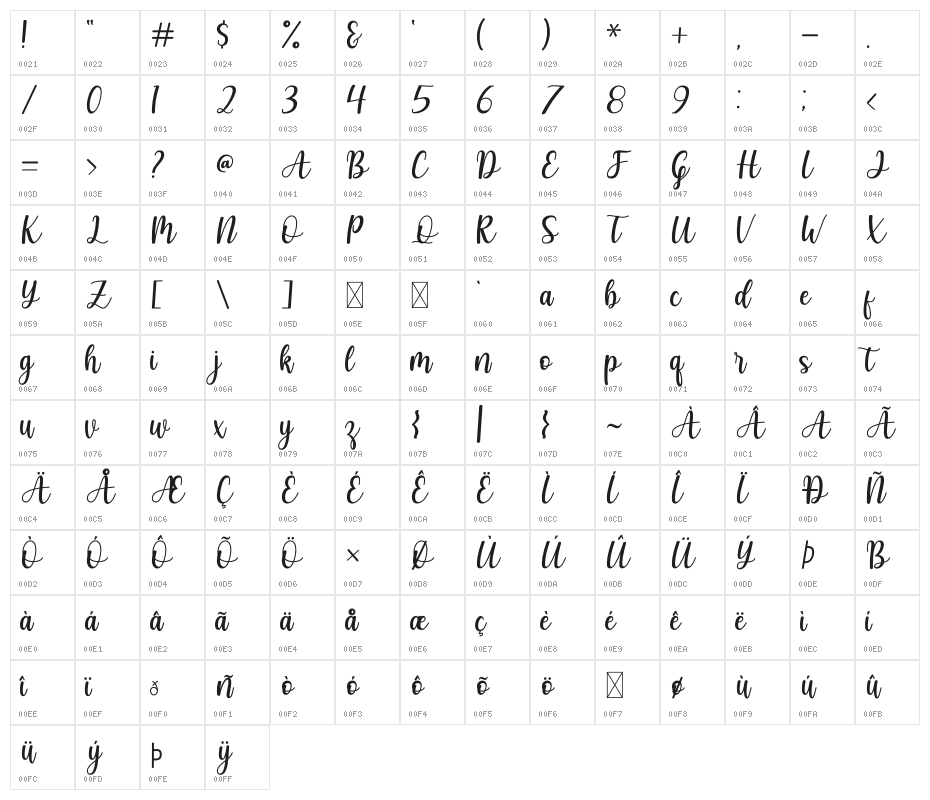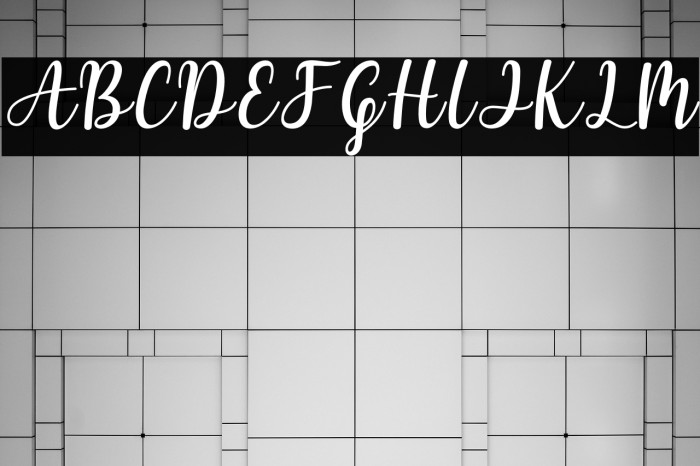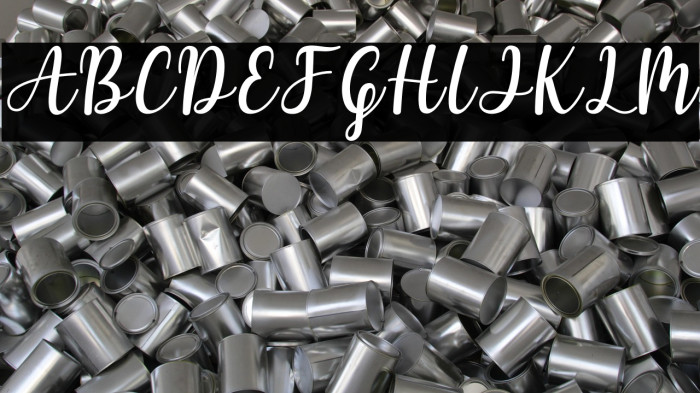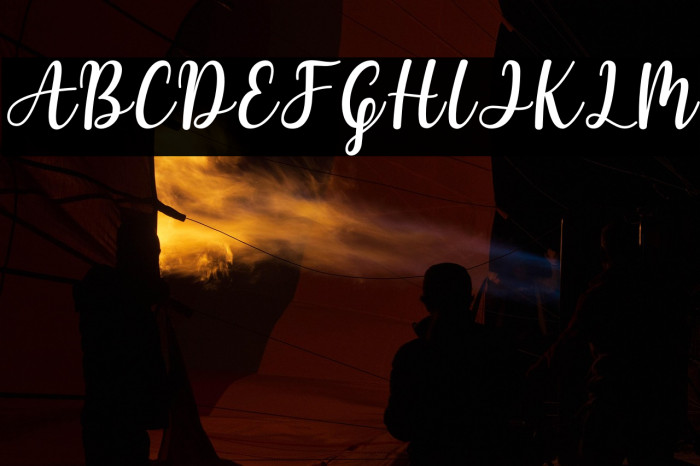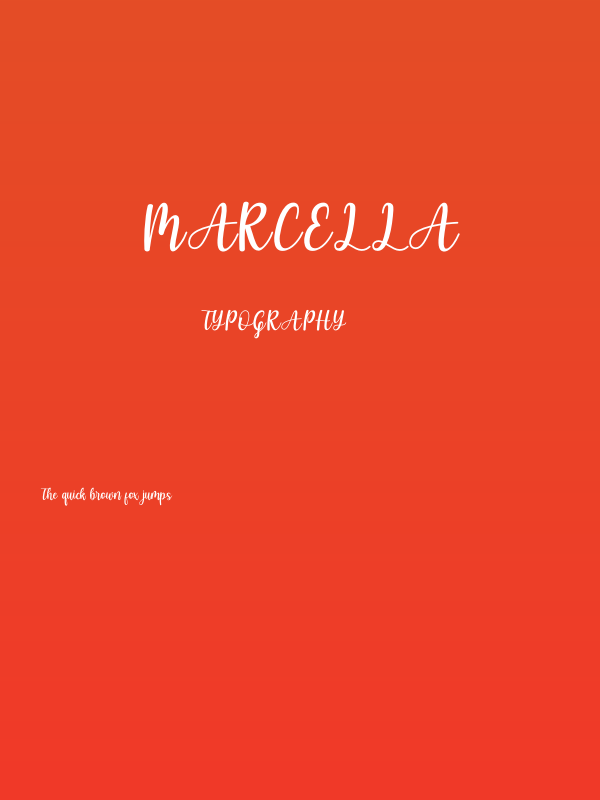
Marcella Font
Marcella Description
This elegant script font features a flowing, cursive style with smooth, rounded edges and a natural handwritten appearance. The uppercase letters are slightly more ornate, with gentle loops and swirls, while the lowercase letters maintain a consistent, fluid motion. The numerals are clear and easy to read, complementing the overall aesthetic. Special characters are designed to match the script's graceful style, making it versatile for various applications. The font's balance between readability and decorative flair makes it suitable for both formal and casual settings.
Overall StyleElegant, Handwritten
Use CaseHeadlines, Invitations, Branding
Proposed ProjectsIdeal for wedding invitations, greeting cards, branding, and elegant packaging designs.